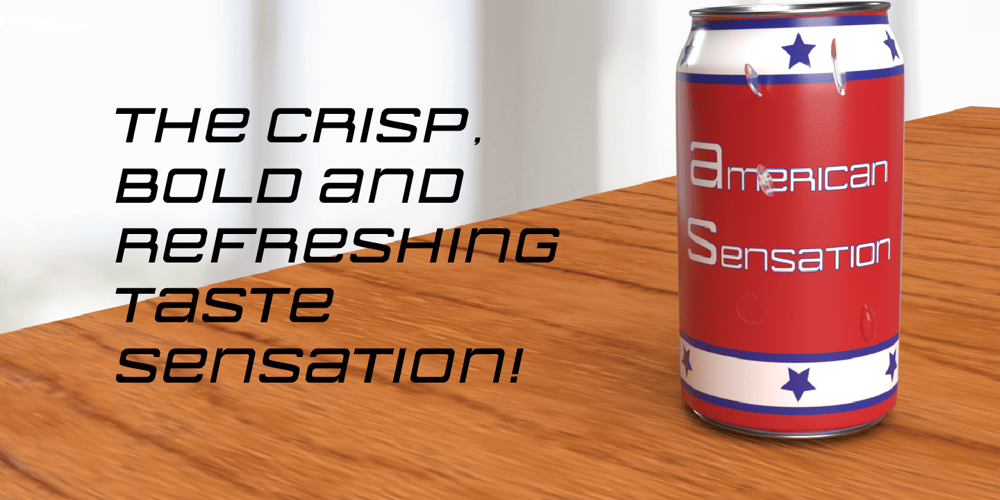
American Sensation Font Family was designed by Rob Barba and published by Megami Studios. American Sensation contains 10 styles and family package options. This font is styled after artwork from the cola signs of old. Signs that talked about “America’s Sensation”, with “Cool, Refreshing Taste” and other words of a bygone era, one with cane sugar and not corn syrup.Filled with a retro feeling of sophistication and playfulness, this font can be used in a variety of fashions.